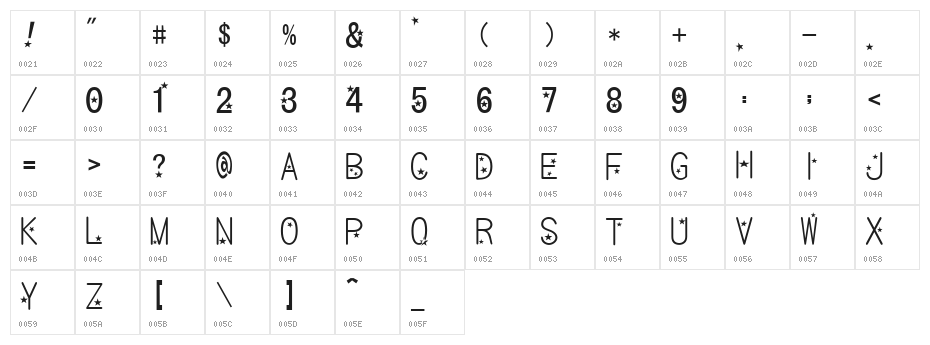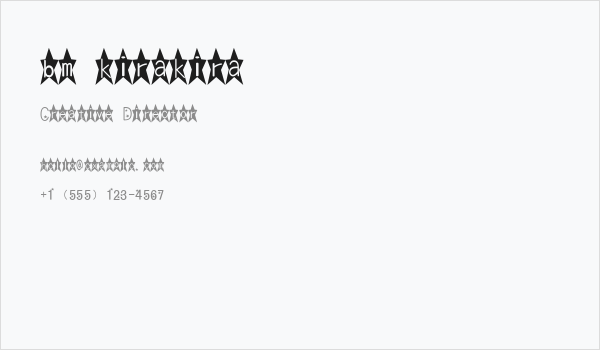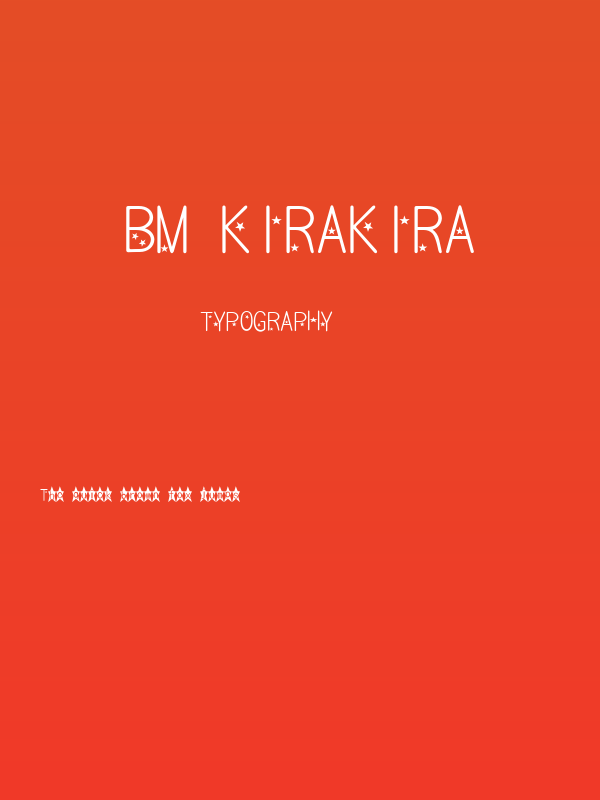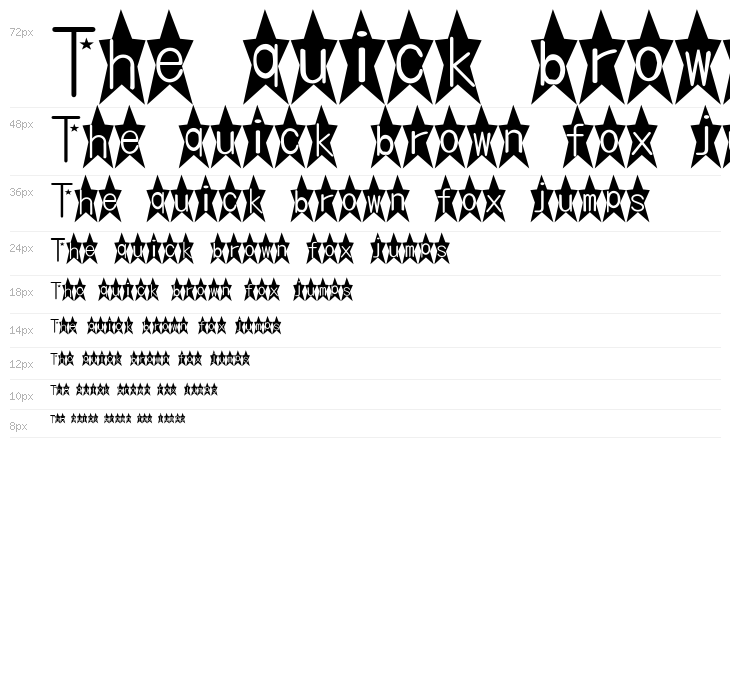
bm kirakira Font
bm kirakira Description
This playful and decorative font features a unique design where each character is adorned with star motifs. The uppercase letters are tall and slender, with stars integrated into the strokes, adding a whimsical touch. The lowercase letters are set against a bold, star-shaped background, creating a striking contrast. Numbers and special characters also incorporate star elements, maintaining the cohesive theme. This font is ideal for projects that require a fun and eye-catching aesthetic.
BM-KIRAKIRA UPPERCASE
BM-KIRAKIRA LOWERCASE
BM-KIRAKIRA OTHER CHARS
| Overall Style | Playful and Whimsical |
| Proposed Projects | Ideal for children's book covers, party invitations, festive posters, and playful branding. |